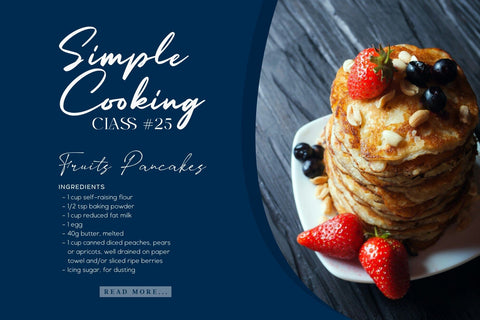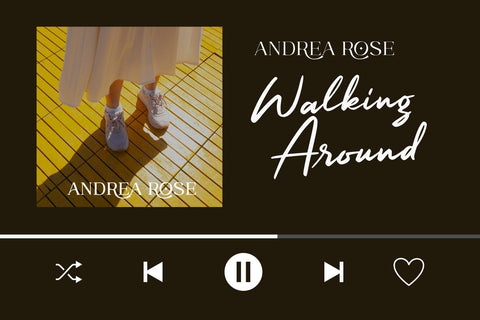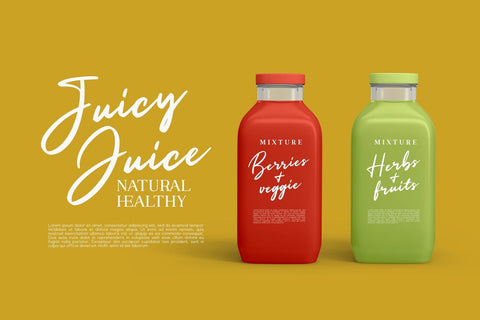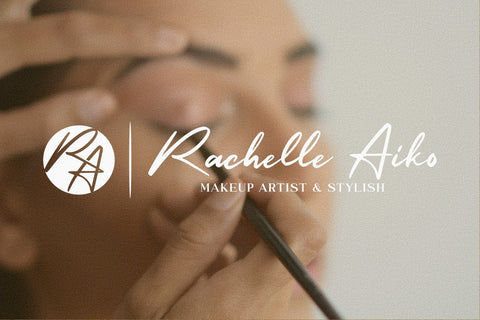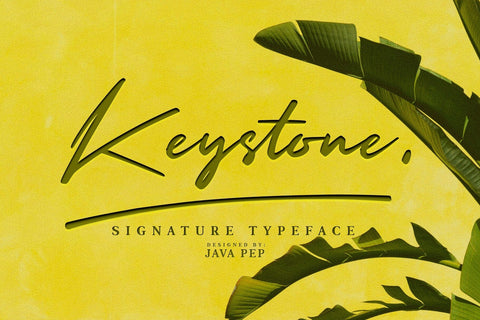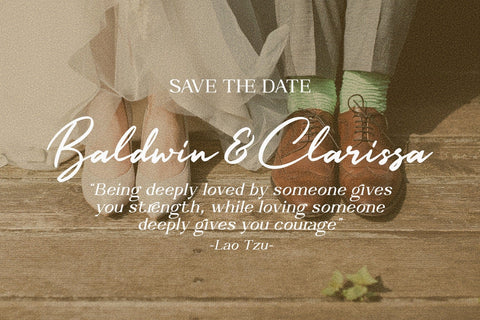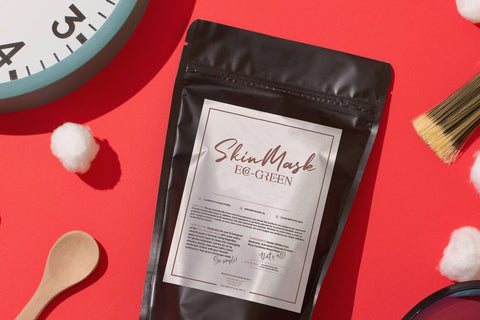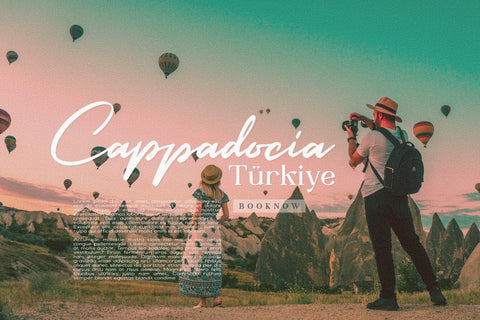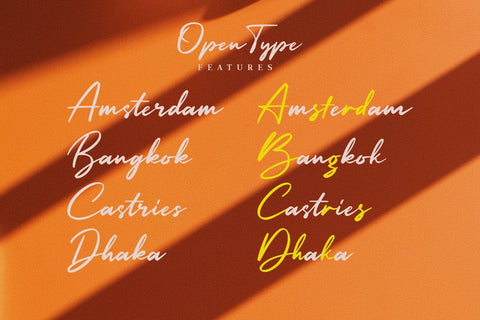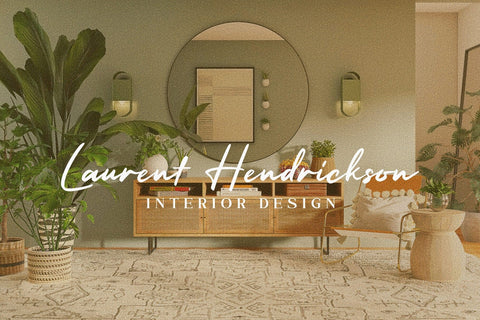
Keystone / Signature typeface
Keystone font is the signature typeface with an elegant style. This font comes with alternate features to make your project design more standout and elegant. Keystone font also has multilingual features with more than 30 languages. This font is perfect for branding, wedding invitations, greeting cards, publishing, logotype, headlines, quotes, advertising, product packaging, etc.
- Uppercase, lowercase, & punctuation
- Multilingual support